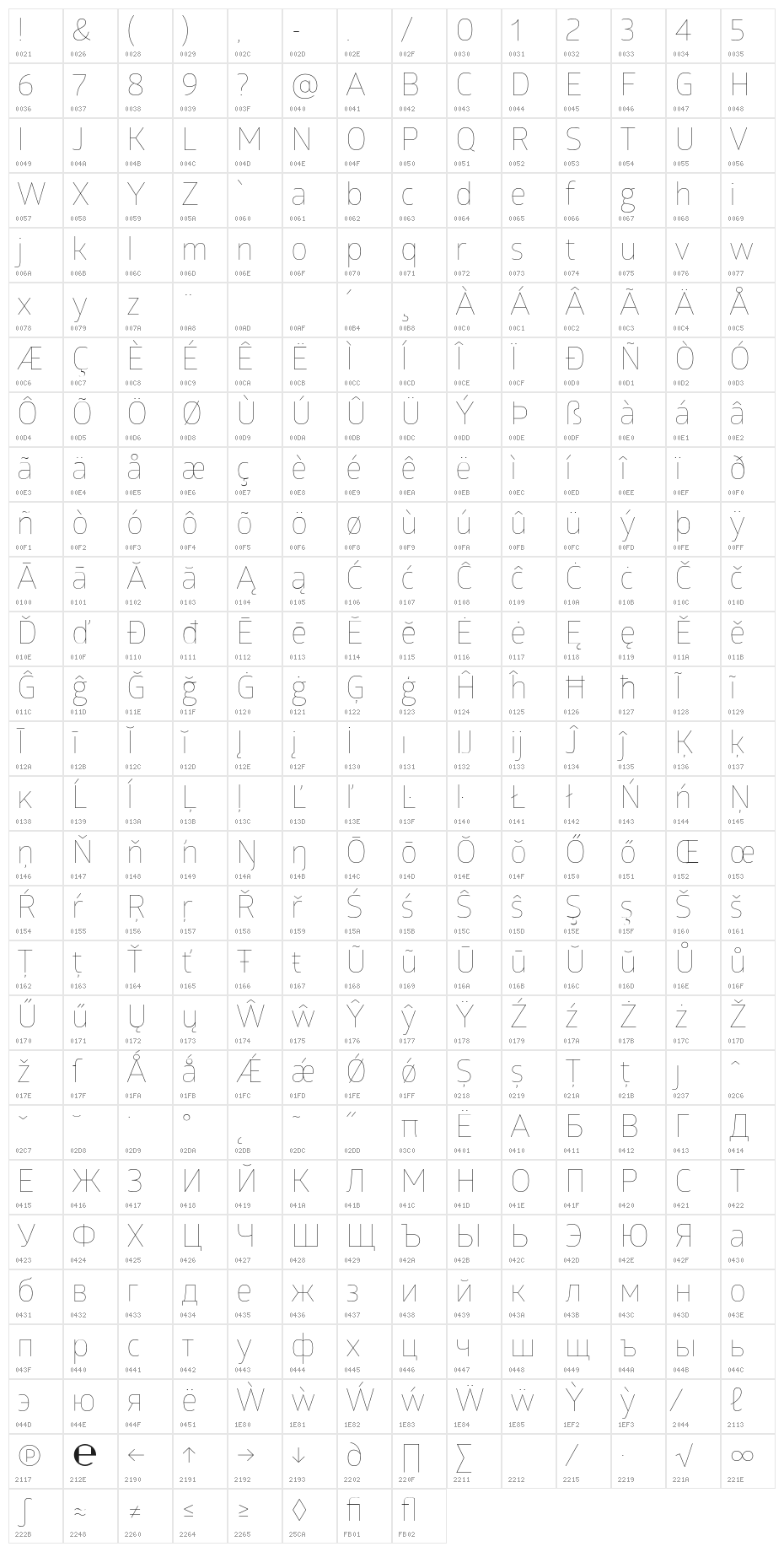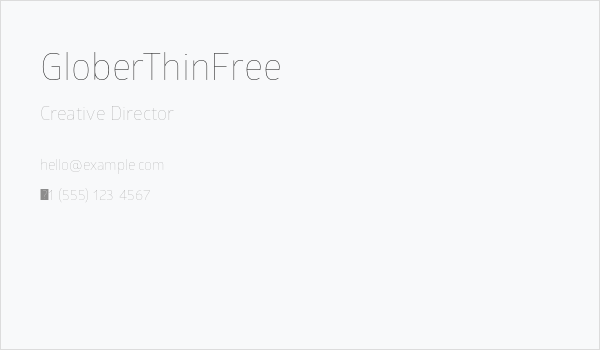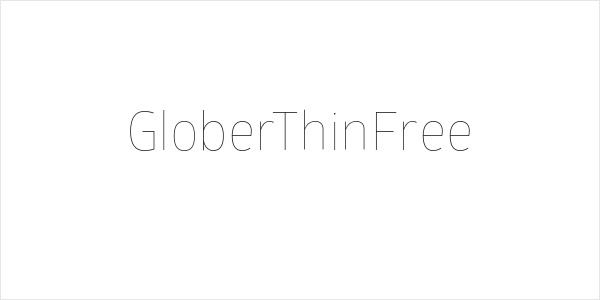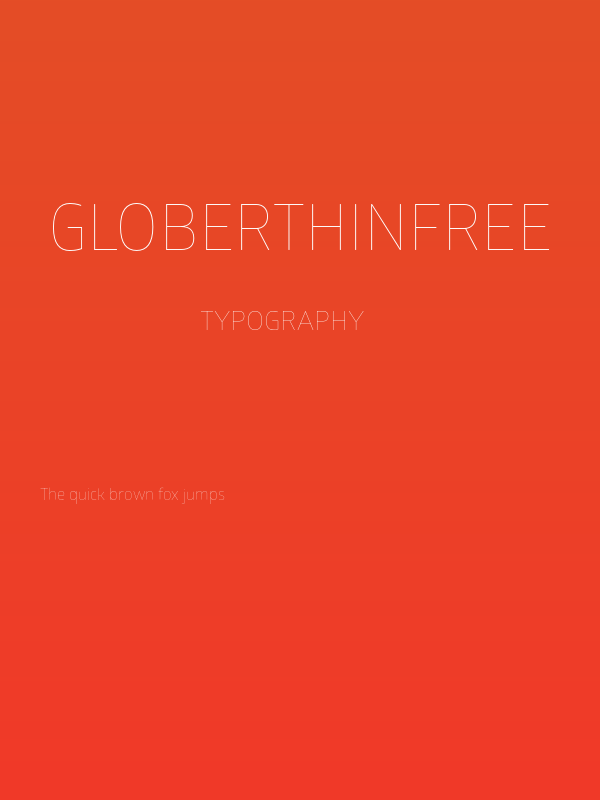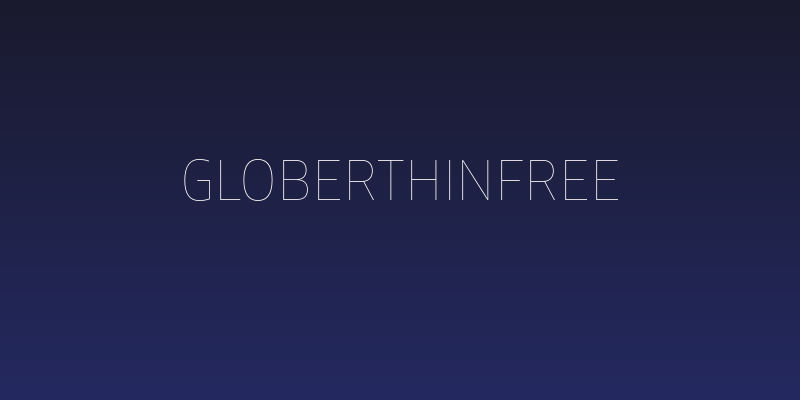
GloberThinFree Font
GloberThinFree Description
This font features a clean, minimalist design with a thin, elegant line weight. The characters are crafted with precision, offering a modern and sophisticated look. The uppercase and lowercase letters maintain a consistent style, with smooth curves and sharp angles that enhance readability. The numerals are well-proportioned, complementing the overall aesthetic. Special characters are included, providing versatility for various design needs. This font's simplicity and clarity make it suitable for a wide range of applications, from digital to print media.
| Proposed Projects | Ideal for branding, editorial design, websites, and minimalist graphic design projects. |